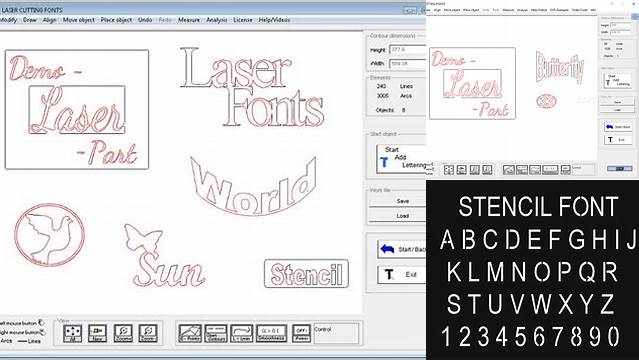
Mastering Fonts For DXF Laser Cutting Projects
Hey guys, diving into the world of DXF laser cutting fonts can feel a bit like a treasure hunt, right? We're all looking for that perfect typeface that not only looks awesome but also cuts flawlessly on our laser machines. Forget about the shady corners of the internet looking for something 'cracked' – that's just a headache waiting to happen and can compromise your designs, your machine, and even your computer! Instead, let's focus on legitimate, high-quality, and effective ways to find, optimize, and use fonts for all your laser cutting needs. Whether you're making intricate signs, custom gifts, or precise parts, the right font choice and proper preparation are absolutely crucial. This comprehensive guide is here to walk you through everything, from understanding font types best suited for laser work to troubleshooting common issues, ensuring your projects come out looking sharp and professional every single time. Get ready to transform your laser cutting game by mastering the art of font selection and DXF optimization – it's going to make a huge difference in your final products, trust me.
The Quest for Perfect Laser Cutting Fonts
When you're embarking on any laser cutting journey, finding the perfect laser cutting fonts isn't just a matter of aesthetics; it's about functionality, durability, and how well your machine can actually interpret and execute the design. Seriously, guys, this is where many projects either shine or totally flop. The quest for these ideal fonts involves understanding the nuances of how different typefaces behave when translated into vector paths and then cut or engraved by a laser. It's not like designing for print, where almost any font goes. Here, every line, every curve, and every intersection matters deeply. You need fonts that are clean, have minimal nodes, and can retain their integrity even at smaller sizes. Thin, delicate fonts might look beautiful on screen, but they can burn away or become too fragile on your material. Conversely, overly complex or ornate fonts can lead to frustratingly long cutting times and intricate debris that's hard to clean. This section is all about setting the foundation for what makes a font truly 'laser-ready' and why this initial selection process is perhaps the most critical step in achieving stunning results without the headaches of constant re-dos. We'll explore the foundational principles that guide smart font choices, ensuring you're always picking typefaces that are both visually appealing and perfectly practical for the precision demands of laser cutting technology, preparing you for success from the very first cut.
Understanding DXF and Font Compatibility for Laser Cutting
Understanding DXF and font compatibility for laser cutting is absolutely fundamental to your success, guys. Think of DXF (Drawing Exchange Format) as the universal language your design software speaks to your laser cutter. It's a vector file format that describes geometric shapes – lines, arcs, circles, and, crucially for us, the outlines of your text characters. Now, here's the kicker: when you type text in a design program, it's typically just 'text objects' using a specific font file (like a .ttf or .otf). Your laser cutter doesn't understand these text objects directly. Instead, it needs them converted into actual vector paths or outlines. This process is called 'vectorizing text' or 'converting text to curves/outlines.' If you try to send a DXF file with un-vectorized text, your laser cutter simply won't know what to do with it, or it might substitute the font with a generic one, completely messing up your design. Moreover, not all fonts convert cleanly to DXF. Some fonts have very complex paths, self-intersecting lines, or an excessive number of nodes, which can lead to messy cuts, errors during import, or even crashes in your CAM software. A clean, well-structured font that vectorizes smoothly is therefore key to a seamless workflow. This compatibility issue extends beyond just conversion; it also affects how efficiently your laser operates. Fonts with simpler, more elegant paths will cut faster and with greater precision, minimizing material waste and maximizing the life of your laser's components. Understanding this foundational relationship ensures that every font you choose and every DXF you export is perfectly optimized for your machine, leading to consistent, high-quality results every single time.
Why 'Cracked' Software is a Risky Business for Your Designs
Let's be super clear on this, guys: resorting to 'cracked' software is a risky business for your designs and your entire laser cutting operation. While the idea of getting expensive design tools or specialized font utilities for free might sound tempting, the reality is a minefield of potential problems that far outweigh any perceived benefit. First and foremost, using cracked software is illegal. It's copyright infringement, plain and simple, and can lead to serious legal consequences if you're caught, especially if you're using it for commercial purposes. Beyond the legalities, there are massive technical risks. Cracked software often comes bundled with malware, viruses, or ransomware that can compromise your computer's security, steal your data, or even brick your system entirely. Imagine losing all your design files, customer lists, or having your laser cutter's control software infected – that's a nightmare scenario that no one wants to face. Furthermore, cracked versions rarely receive updates, meaning you'll miss out on crucial bug fixes, performance improvements, and new features that legitimate users enjoy. This lack of support can lead to compatibility issues with new operating systems, driver problems, or critical errors when trying to export complex DXF laser cutting fonts. When your livelihood depends on your tools working reliably, relying on unstable, unsupported, and potentially malicious software is just a recipe for disaster. Investing in legitimate software, even if it means starting with free open-source alternatives like Inkscape, ensures you have a stable, secure, and supported environment for all your creative endeavors, protecting your work and your peace of mind.
Essential Font Characteristics for Laser Cutting Success
To truly achieve laser cutting success, guys, you need to understand the essential characteristics that make a font suitable for the laser. It's not just about what looks good; it's about what works when turned into a physical object. The demands of a laser cutter are unique: it's either cutting through material or engraving its surface, and both processes require clean, continuous, and structurally sound vector paths. Fonts with too many intricate details, sharp corners that become fragile, or thin strokes that might burn away simply won't hold up. You're looking for typefaces that balance aesthetic appeal with practical considerations like material strength, cutting speed, and ease of cleanup. This section will dive deep into what to look for when selecting fonts, from the number of nodes in their outlines to their overall thickness and the clever ways designers have adapted traditional typefaces for the laser environment. By focusing on these core characteristics, you'll be able to quickly identify fonts that are ready for prime time on your laser, saving you countless hours of frustration and ensuring your finished products are always robust, legible, and visually stunning. This knowledge is your secret weapon in crafting flawless laser cut items.
Mastering Single Line Fonts for Speed and Precision
When it comes to mastering single line fonts for speed and precision, you're tapping into one of the most efficient techniques in laser cutting, particularly for engraving and marking, guys. Unlike traditional fonts which have outlines that create a shape (and thus often require two passes for cutting, or filling for engraving), single line fonts, sometimes called 'stick fonts' or 'engraving fonts,' are designed with a single, continuous path for each stroke of a letter. This means your laser can follow that path directly, saving an incredible amount of time and increasing precision, especially for detailed text or smaller engravings. Imagine not having to engrave the entire area between two outlines of a letter, but simply tracing the center line! This drastically reduces job times and minimizes wear on your laser tube. For DXF laser cutting fonts, single line fonts are fantastic because they translate very cleanly into simple vector paths. There are no tricky fills, no double lines to confuse the laser, just a straightforward stroke. This makes them ideal for applications where speed is paramount and a minimalist, clean aesthetic is desired, such as marking tools, serial numbers, or fine text on intricate jewelry pieces. However, it's important to remember that they are primarily for engraving or marking, not for cutting out letters as standalone shapes, unless you specifically design them to be cut, which usually involves adding a small thickness. Learning how to identify, convert (if necessary), and effectively use single line fonts will significantly boost your productivity and the crispness of your engraved details.
Stencil Fonts: Bridging Gaps for Structural Integrity
For projects that involve cutting out entire letters or words, stencil fonts are absolutely key for bridging gaps for structural integrity, guys. You know how regular fonts, when cut out, often have 'islands' – like the inside of an 'O', 'A', or 'P' – that would simply fall away and disappear? Stencil fonts ingeniously solve this problem by incorporating small breaks or 'bridges' in their design. These bridges connect the inner parts of a letter (the counters) to the outer part, ensuring that once cut, the entire letter or word remains a single, cohesive piece. This is crucial for maintaining the structural integrity of your DXF laser cutting fonts, preventing delicate pieces from breaking off or getting lost. Imagine trying to cut out a complex logo or a sign with many letters; without stencilization, it would be an impossible mess of disconnected fragments. While some might argue that stencil fonts have a specific aesthetic that isn't always desired, their practical advantages for laser cutting are undeniable. Many modern stencil fonts are designed to be elegant and subtle, minimizing the visual impact of the bridges while maximizing stability. When preparing your design, you can either select a font that is already designed as a stencil, or in some advanced cases, manually add bridges to a regular font's outlines if your software allows for precise vector editing. Opting for a stencil font from the get-go saves you a ton of work and ensures your laser-cut text stands strong and proud, no matter how intricate the design. It's a fundamental technique for anyone serious about cutting legible and robust text.
The Art of Engraving Fonts in DXF Projects
Delving into the art of engraving fonts in DXF projects opens up a whole new dimension of creative possibilities for your laser, guys. While cutting completely through material is often the goal, engraving offers a subtle, sophisticated way to add detail, texture, and personalization to a wide array of products. When we talk about engraving fonts in DXF, we're not necessarily just referring to the single-line fonts we just discussed, though they're excellent for efficiency. We're also talking about using regular, outlined fonts that the laser then 'fills' with a series of parallel lines or dots to create a solid, etched effect. The choice of font here is critical because the laser will be removing material from the surface rather than cutting through it. This means you have more flexibility with font thickness compared to cutting, but you still need to consider how well the font's internal spaces (counters) will render. Thin, wispy fonts might not engrave very clearly, while overly bold fonts can take a very long time to fill. The 'art' comes in selecting fonts that have distinct shapes and proportions that lend themselves well to this material removal process. You'll often find that sans-serif fonts with moderate thickness and clear, open counters work beautifully, providing crisp, readable engravings. Furthermore, adjusting the laser's power and speed settings is paramount to achieving the desired depth and contrast for your engraved DXF laser cutting fonts. Experimentation with different fonts and settings on scrap material is always a good idea to perfect your technique and bring out the true artistry in your engraved designs.
Boldness and Thickness: More Than Just Aesthetics in Laser Cutting
When you're choosing DXF laser cutting fonts, guys, remember that boldness and thickness are far more than just aesthetics; they're critical functional elements that directly impact the success of your laser projects. A font's weight – how bold or thick its strokes are – determines its structural integrity and readability, especially at smaller scales. For cutting applications, if a font is too thin, the material remaining after the laser pass might be too fragile and simply break apart, particularly with delicate materials like thin wood, acrylic, or paper. Imagine a very fine serif on a tiny letter 'i' just crumbling away – super frustrating! Conversely, extremely thick fonts can lead to very wide cut paths, consuming more material and potentially looking clunky, or taking a significantly longer time to cut due to the increased surface area. For engraving, while the structural concerns are less about breaking and more about clarity, an appropriate thickness still matters. A font that's too thin might not engrave deeply enough to be clearly visible, especially on certain materials, while an overly bold font might require excessive fill passes, leading to unnecessarily long job times. The sweet spot often lies with fonts that have a moderate to bold weight, ensuring both durability for cutting and clear visibility for engraving. When converting to DXF, these bolder fonts translate into robust vector paths that the laser can handle consistently, minimizing inconsistencies and ensuring your text elements stand up to the rigors of being a physical object. Always prioritize a font's practical thickness for the material and scale of your project over its purely visual appeal for optimal results.
Vectorizing Text: Turning Fonts into Paths for Perfect Cuts
Vectorizing text, or turning fonts into paths for perfect cuts, is the single most critical step in preparing your DXF laser cutting fonts, guys. Seriously, if you skip this, your laser cutter won't know what hit it! When you type text in design software, it's typically 'live text' – meaning it's still editable text that relies on a specific font file installed on your computer. Your laser's control software, however, doesn't operate like a word processor; it needs precise geometric instructions in the form of vector paths. Vectorizing text transforms these live text characters into actual shapes made up of lines and curves (nodes and segments). Once vectorized, the text is no longer text; it's a collection of individual vector objects. This process makes your text independent of the original font file, ensuring that anyone opening your DXF file, regardless of whether they have that specific font installed, will see and cut the text exactly as you designed it. Without vectorizing, your laser software might substitute the font, display it incorrectly, or simply fail to process it, leading to wasted time and material. In most design programs (like Adobe Illustrator, Inkscape, or CorelDRAW), this function is usually found under menu options like